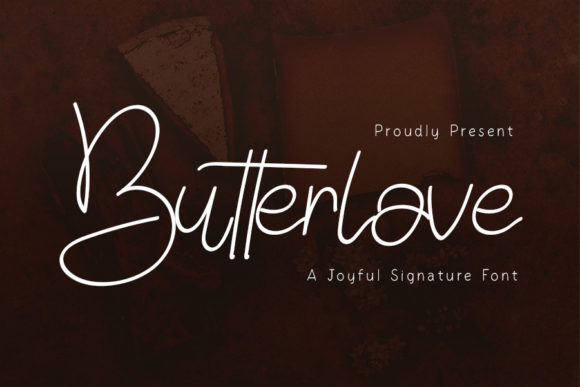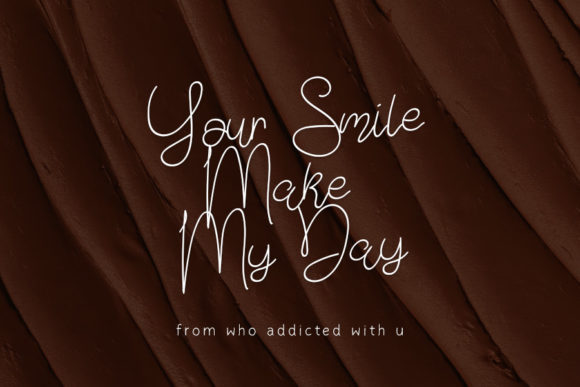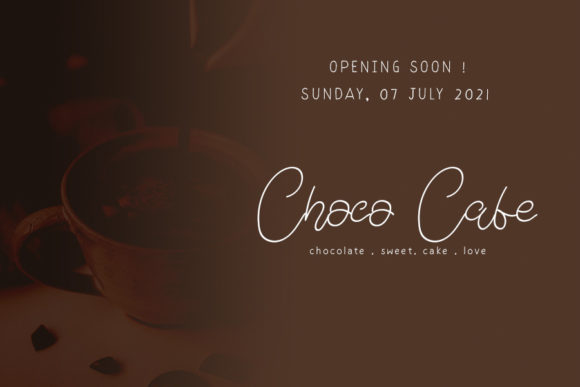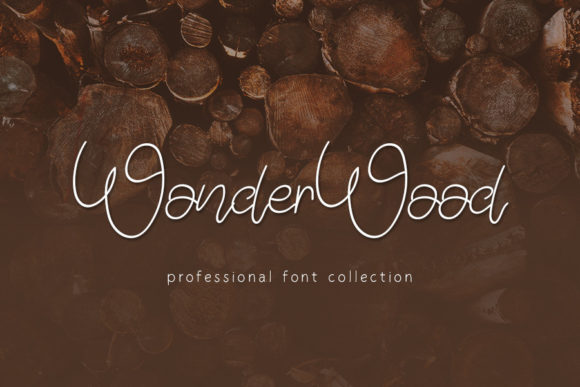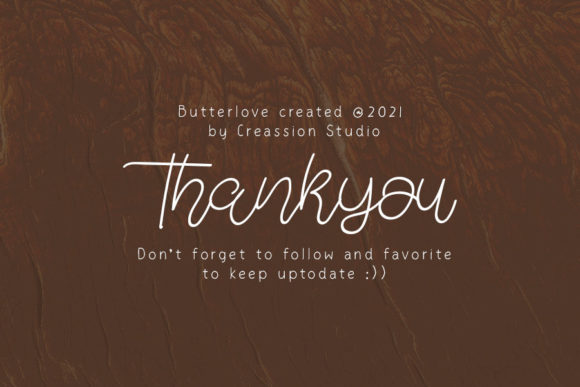
Butterlove Font
About Butterlove Font
Butterlove is a stylish and delicate script font that exudes charm and elegance. With its clean, thin, and smooth vibe, this font is a versatile choice that can elevate any design it is added to.
The stylish nature of Butterlove adds a touch of sophistication and refinement to your designs. Its delicate script style brings a sense of grace and beauty, creating a visually appealing aesthetic. Whether you’re working on invitations, branding materials, packaging, or any other project, Butterlove font adds a stylish and elegant touch.
The clean, thin, and smooth vibe of Butterlove contributes to its versatility and adaptability. This font seamlessly integrates into various design styles and themes, making it suitable for a wide range of applications. Its clean lines and sleek appearance ensure that your designs maintain a modern and polished look.
Butterlove is designed to make a lasting impact on your designs. Its stylish and delicate letterforms capture attention and add a touch of elegance. Whether you’re creating a logo, a wedding invitation, or a social media graphic, Butterlove brings a sense of sophistication that can elevate your projects.
In summary, Butterlove is a stylish and delicate script font with a clean, thin, and smooth vibe. It adds charm and elegance to any design and is suitable for various applications. Embrace the beauty of Butterlove and let it enhance your creations with its stylish and refined presence.